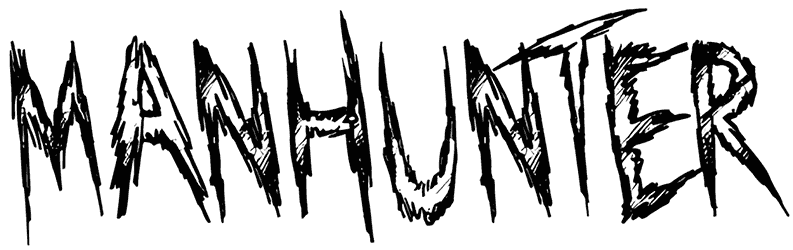
Manhunter Font
After determining your graphic content personality, you must select a cohesive font for designing stickers, graffiti, social media posts, or illustrations. We offer you to pick a horror font the same to Manhunter.
This all-caps grunge font can bring a sense of dynamic, eerie, spooky, and fearful content to your visual content. Aside from the lack of numbers, this masterpiece would be a perfect choice.